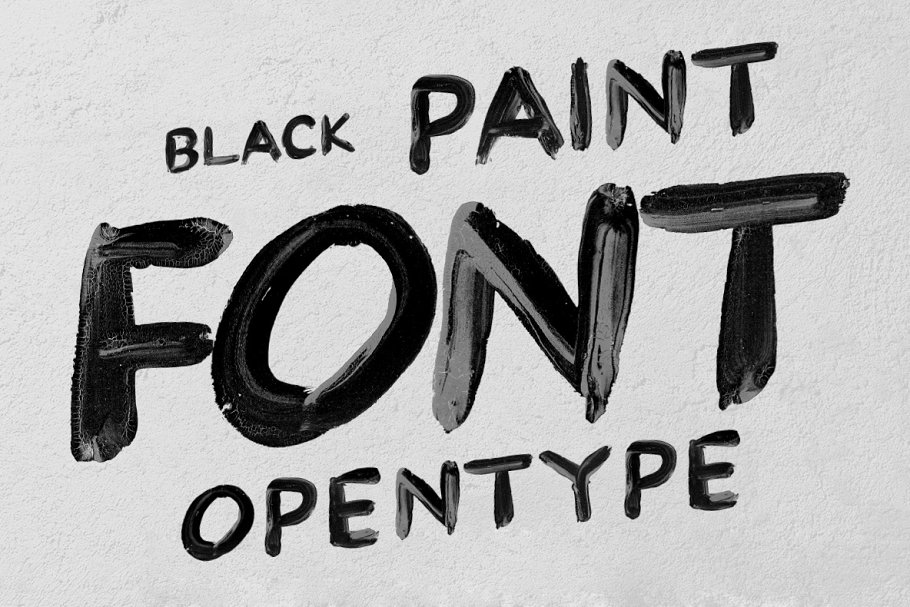
Are you looking for the perfect font to make your posters stand out? Look no further than Black Paint Font! Created by Vladimir Loginov, this high definition OpenType-SVG font is sure to make your designs pop with its bold and striking appearance.
With uppercase characters, numerals, and basic punctuation, Black Paint Font is versatile enough to suit any design project. The font is a color OpenType file, meaning it will show up only in apps that are compatible with color bitmap fonts. However, all characters are also included as individual .png files, so you can open them in any graphics software and manually place them to create your desired text layout.
While extended punctuation and language support are not included in the font files due to the large nature of OpenType-SVG fonts, all punctuation characters and several accents are included as individual image files in the .png letter set, allowing you to manually add them to your text.